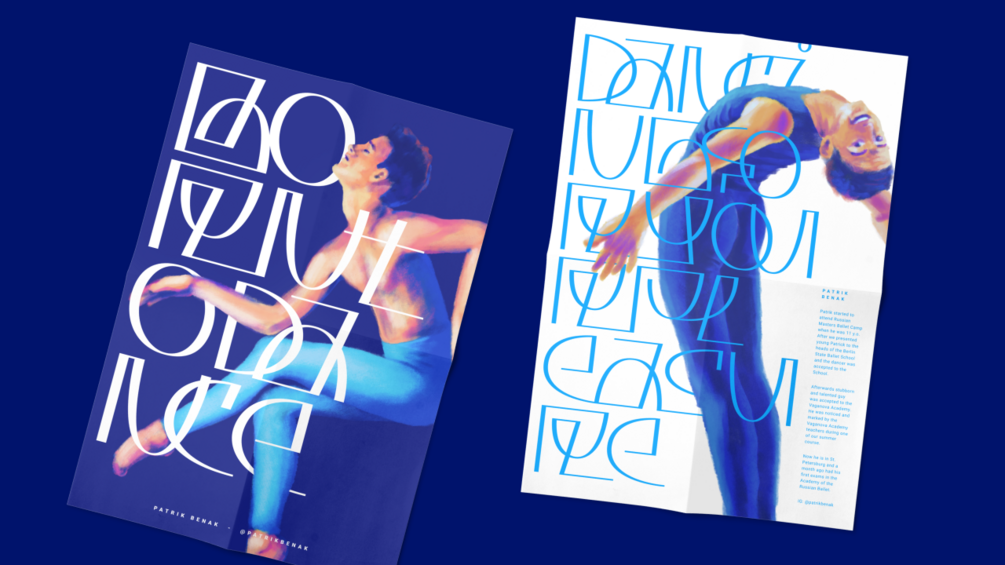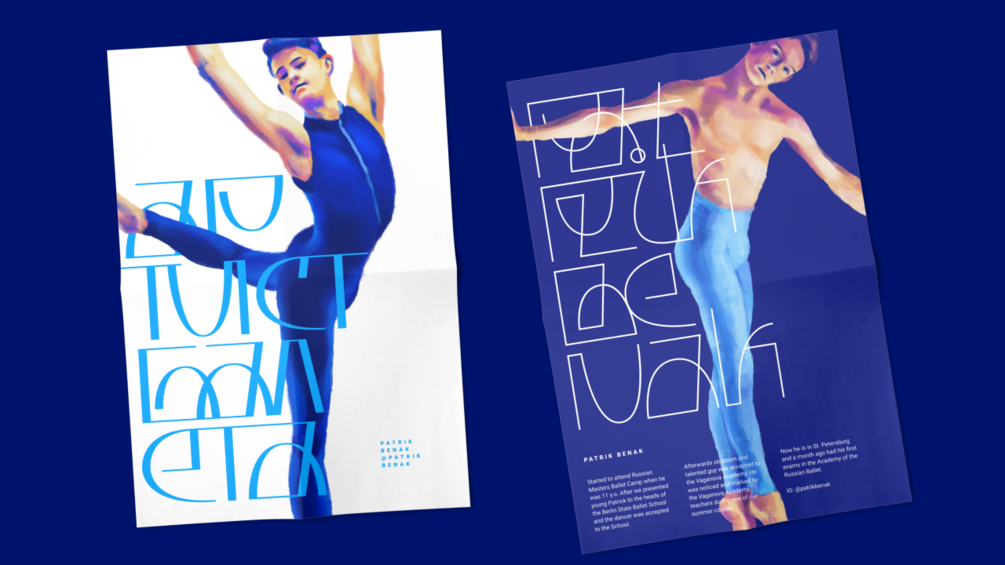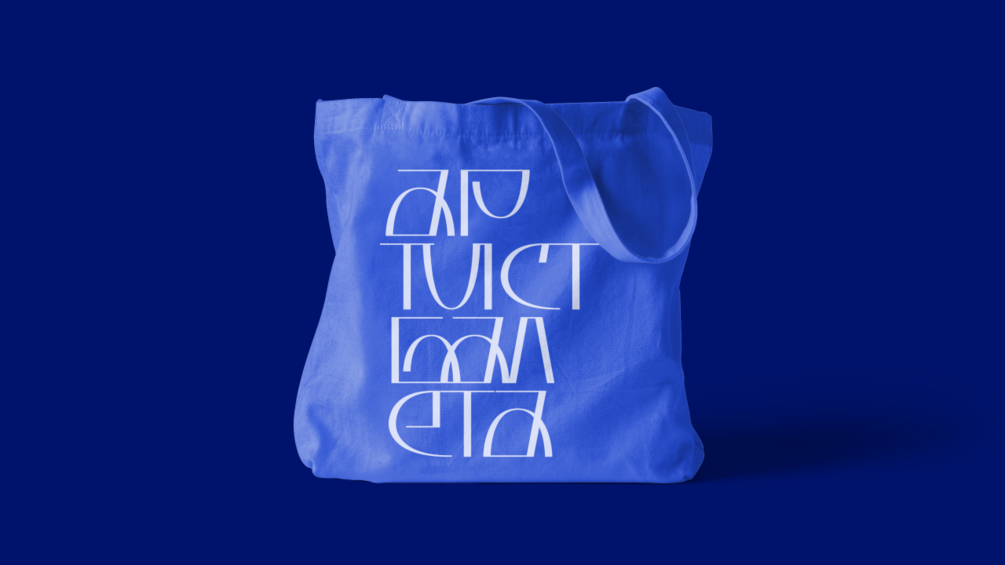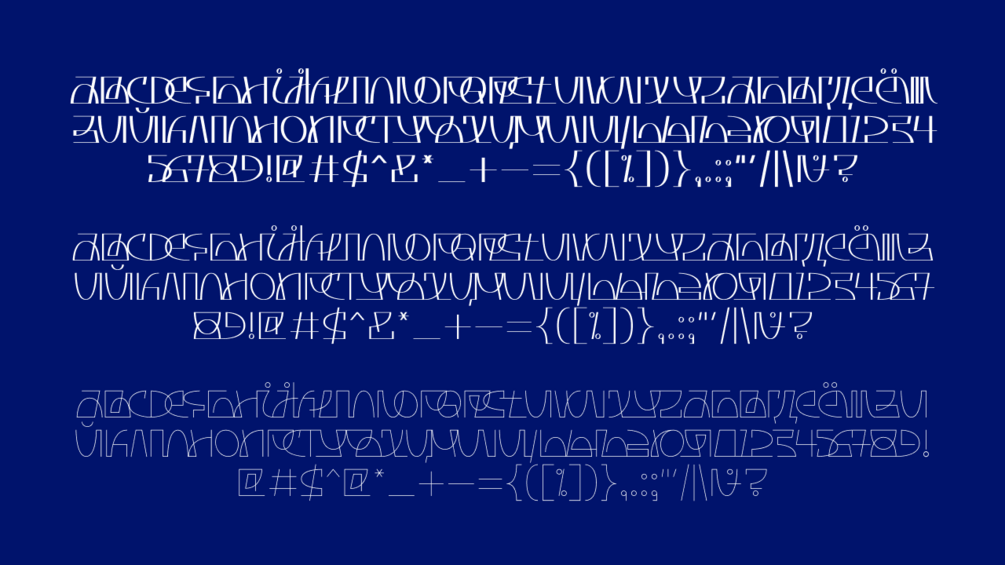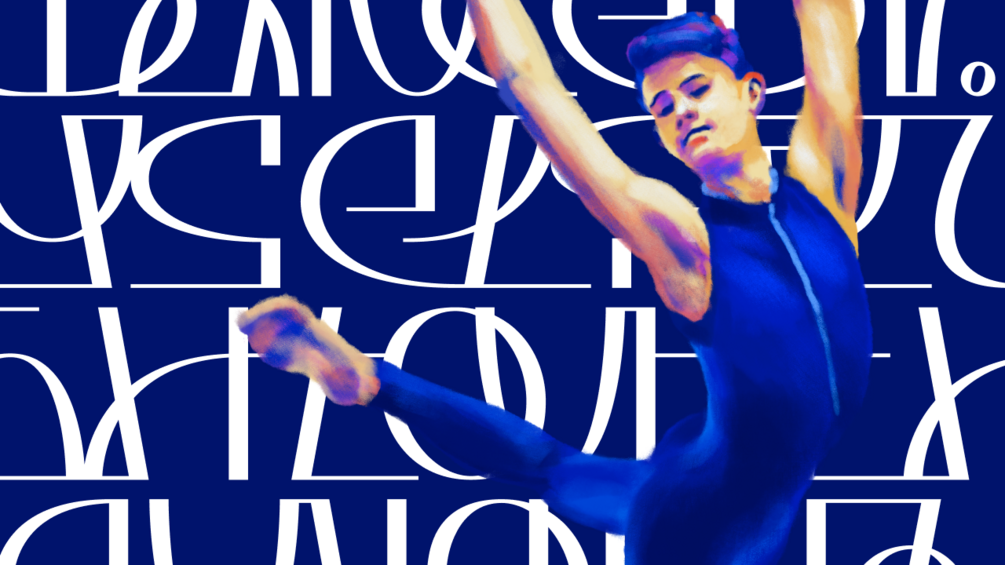
Borntod font
Borntod is the free displace font inspired by the balance of dance. Just start typing to get an interesting pattern.
Included Latin and Cyrillic glyphs in 3 variants (thin, regular, bold).